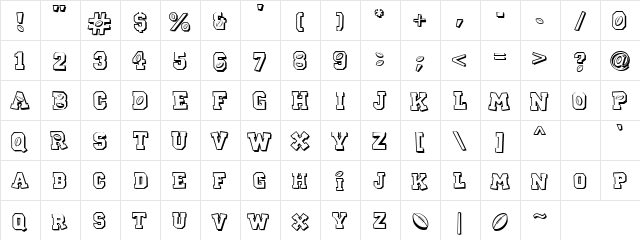
CK Sports Football Regular
Design Context for CK Sports Football Typeface
CK Sports Football brings high-energy athletic personality to the page — its confident, muscular forms are built for impact.
Built for sports team identities, athletic apparel, event posters, and high-energy promotional material.
Pro Tip: CK Sports Football thrives on contrast — try it large, bold, and tight against a clean background for maximum visual impact.